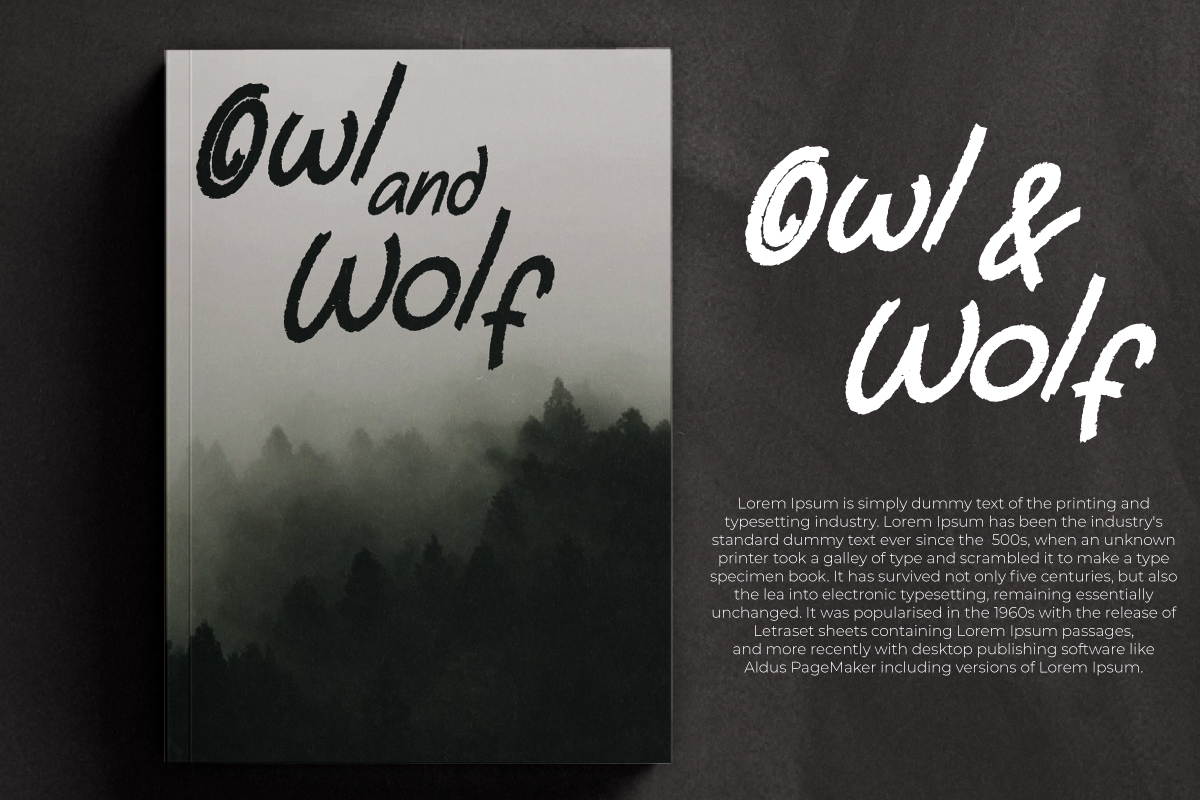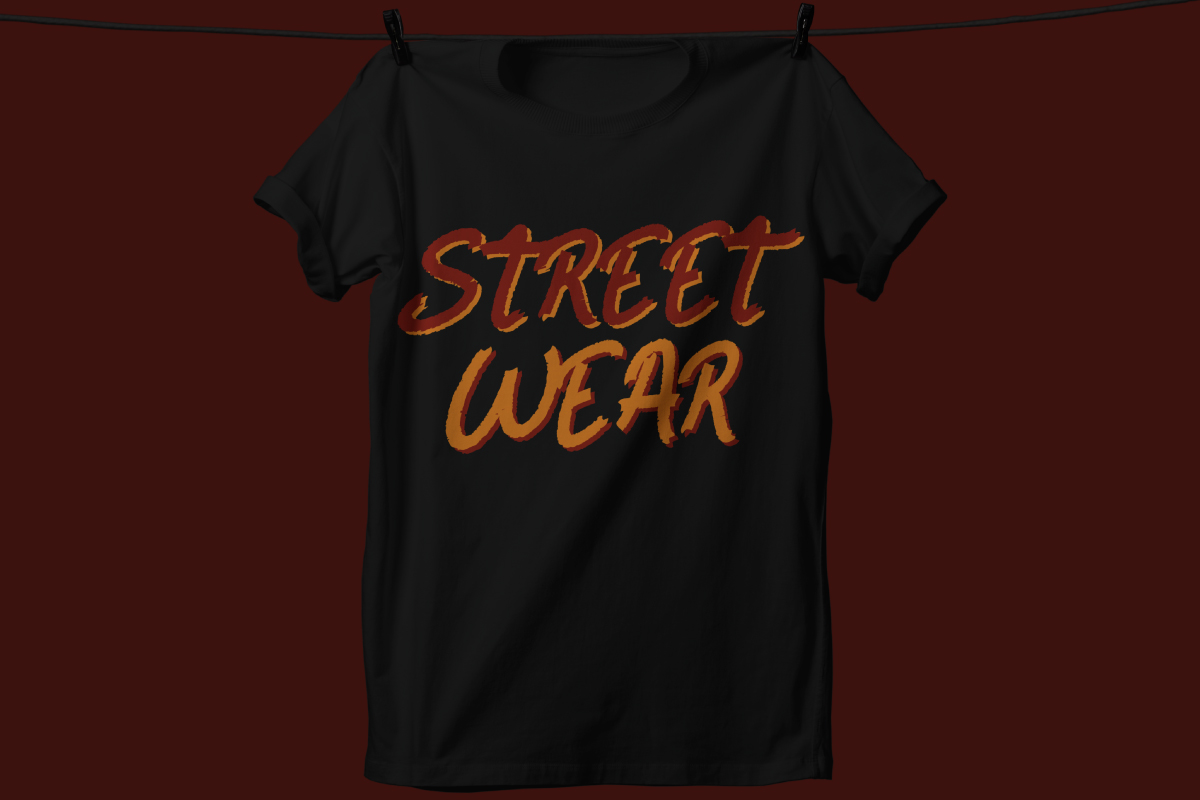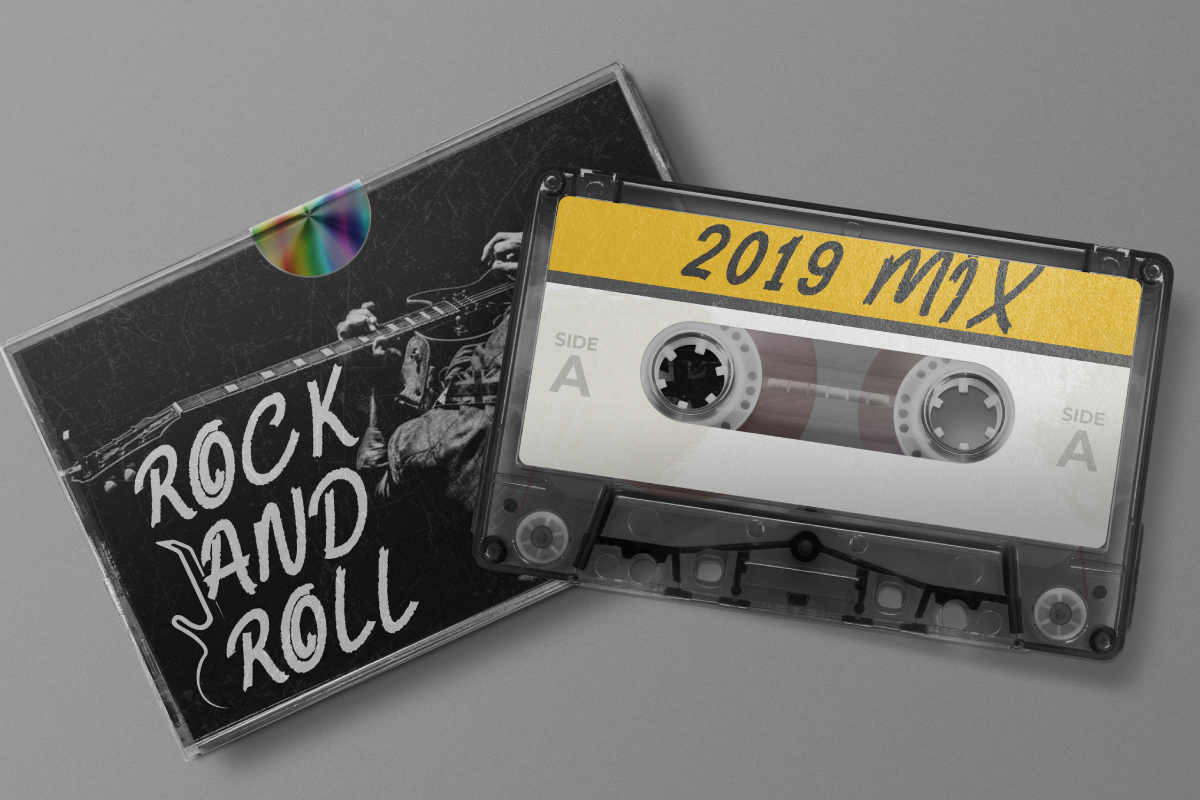
Chalkwrite Font
Chalkwrite Display Font
This font will be great for any projects (require extended license) including : branding, logo, stationery, business card, signage, flyer, brochure etc. Chalkwrite Sketch comes great for many business industries : comic, school, children related, restaurant, music etc